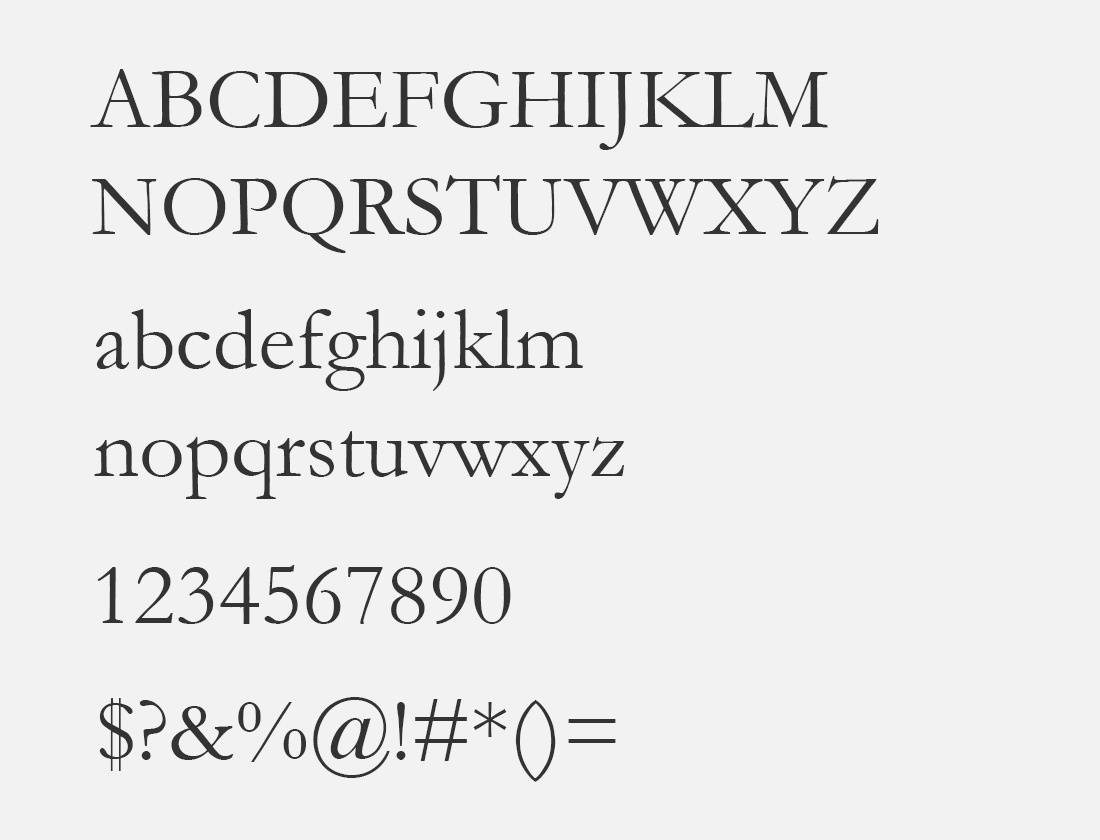
Garamond Font Family
Garamond is a group of many serif typefaces named in honor of the sixteenth-century Parisian engraver Claude Garamond, whose name was generally spelled as “Garamont” during his lifetime. Garamond-style fonts are widely used, most commonly for printing books and text.
Garamond’s types were modeled on the type cut for the Venetian printer Aldus Manutius by his punch cutter Francesco Griffo in 1495. They belong to what is now known as the old-style serif letter design—letters with a fairly naturalistic, handwritten appearance, but with a slightly more rigid and upright structure.